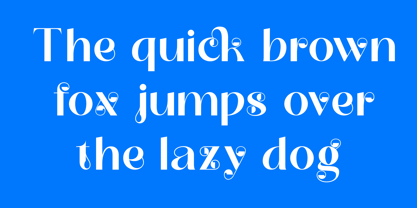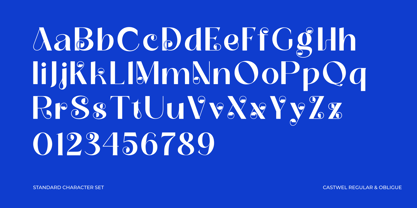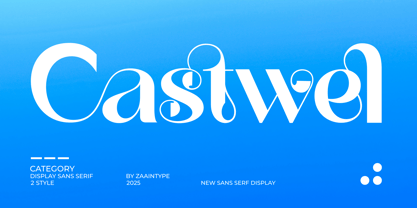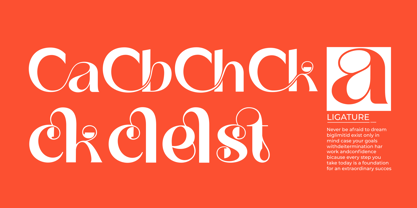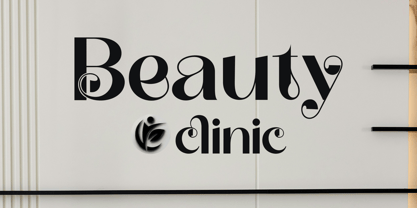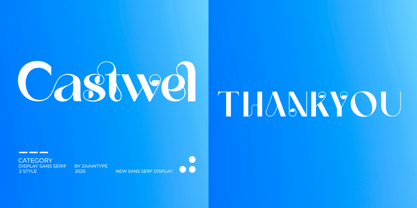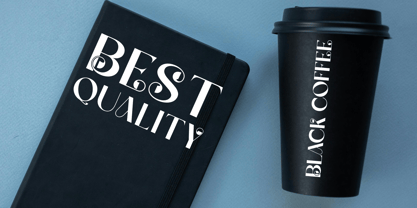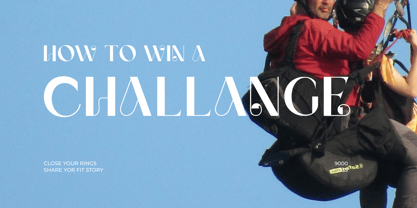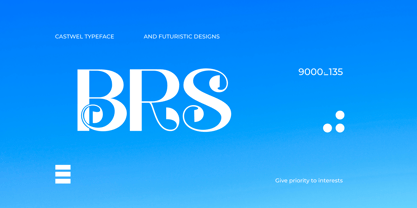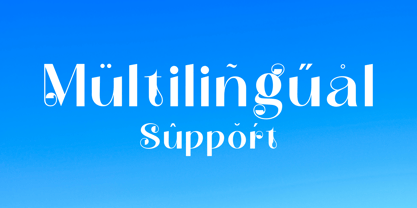
Castwel
by Zaain Type
The Castwel Font Family was designed by Ju Naen and published by Zaain Type. Castwel contains 2 styles and family package options. More about this family
Castwel is a sans-serif font designed with a clean and professional look. It comes in two main variations: Regular, which is stable and easy to read, and Oblique, which adds a dynamic and modern touch. With its sleek yet strong character, Castwel is perfect for various design needs, from branding and editorial to elegant digital displays.
Use Castwel Regular for a formal and neat appearance, or Castwel Oblique for a more expressive and energetic feel. Its versatility makes Castwel the perfect choice for designers who prioritize clarity and style
Designers: Ju Naen
Foundry: Zaain Type
Zaain Type is a type foundry based in Purbalingga, Central Java. Specializing in high-quality type design, Zaain Type offers a range of fonts that combine traditional craftsmanship with modern aesthetics. Known for its meticulous attention to detail, the foundry produces typefaces suitable for various applications, ensuring readability and visual appeal. Inspired by the rich cultural heritage of Central Java, Zaain Type incorporates local artistic elements into its designs, contributing to the global appreciation of Indonesian typography.